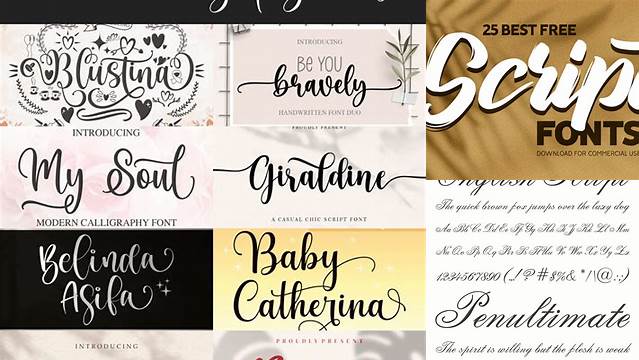
Free English Script Fonts: Download Now!
Hey guys! Looking to add a touch of elegance and personality to your designs? Well, you've come to the right place! We're diving deep into the world of english script hand font free download. From calligraphy-inspired swirls to playful, handwritten styles, there's a script font out there to match your creative vision. Let's explore the best options and where to find them, all without spending a dime!
1. The Allure of English Script Fonts
English script hand font free download are super popular for a reason. They bring a sense of sophistication and a personal touch that other font styles just can't replicate. Think wedding invitations, logos, branding materials, and even social media graphics – a well-chosen script font can elevate your design and make it truly memorable. The beauty of script fonts lies in their versatility. You can find elegant, formal scripts for upscale projects or more relaxed, casual scripts for a friendly, approachable vibe. It's all about finding the perfect match for your specific needs.
2. Where to Find Free English Script Fonts
4. Popular Styles of English Script Fonts
The world of english script hand font free download is vast and varied. You’ll find everything from classic calligraphy styles to modern, brush-lettered designs. Calligraphy scripts, like Great Vibes or Allura, are elegant and formal, perfect for wedding invitations and upscale branding. Brush scripts, like Amatic SC or Pacifico, have a more casual, handwritten feel, ideal for logos and social media graphics. Then there are monoline scripts, which have a consistent stroke width and a clean, modern look. Experiment with different styles to see what resonates with your project and brand identity.
5. Using Script Fonts Effectively in Design
English script hand font free download are beautiful, but they can be tricky to use effectively. Overusing them can make your design look cluttered and difficult to read. A good rule of thumb is to use script fonts sparingly, primarily for headings, logos, or accents. Pair them with a simpler, more readable sans-serif or serif font for body text. Also, pay attention to kerning and leading. Kerning refers to the spacing between individual letters, while leading refers to the spacing between lines of text. Adjusting these settings can significantly improve the readability and visual appeal of your script font.
6. Pairing Script Fonts with Other Fonts
The art of font pairing is essential for creating visually appealing and balanced designs. When you english script hand font free download, think about complementary fonts. A classic pairing is a script font with a clean sans-serif font like Helvetica or Arial. The contrast between the elegant script and the simple sans-serif creates a visually pleasing harmony. Another option is to pair a script font with a serif font like Times New Roman or Georgia. This combination can evoke a sense of tradition and sophistication. Experiment with different pairings to find what works best for your specific project.
7. English Script Fonts for Wedding Invitations
English script hand font free download are a staple for wedding invitations. They add a touch of romance and elegance that perfectly complements the special occasion. Popular choices include calligraphy-inspired fonts like Carolyna Pro Black , Beloved Script, or Honey Script. When designing wedding invitations, consider the overall theme and style of the wedding. A formal wedding might call for a more traditional script font, while a rustic or bohemian wedding might benefit from a more relaxed, handwritten style. Remember to keep the text legible and easy to read, even with the fancy script.
8. English Script Fonts for Logos
A well-chosen english script hand font free download can make a logo stand out and create a memorable brand identity. Script fonts can convey a sense of sophistication, creativity, or playfulness, depending on the style you choose. Before selecting a script font for your logo, consider your target audience and the message you want to convey. A luxury brand might opt for an elegant calligraphy script, while a children's brand might choose a more whimsical, handwritten font. Ensure the script font is legible and scalable, so it looks good on both small and large formats.
9. English Script Fonts for Branding
Branding goes beyond just a logo; it's the entire visual identity of your business. English script hand font free download can play a crucial role in creating a cohesive and memorable brand experience. Use script fonts consistently across all your marketing materials, from your website and social media to your business cards and packaging. Choose a script font that reflects your brand's personality and values. A sophisticated script can convey luxury and exclusivity, while a playful script can create a sense of fun and approachability. Remember to use script fonts sparingly and pair them with other fonts to maintain readability.
10. Free vs. Premium Script Fonts
While there are many fantastic english script hand font free download available, it's worth considering premium fonts as well. Premium fonts often offer higher quality, more extensive character sets, and better support from the font designer. They may also come with additional features like alternate glyphs, ligatures, and swashes, which can add even more personality to your designs. If you're working on a high-profile project or want to ensure you have the best possible font, investing in a premium script font can be a worthwhile decision.
11. Installing Your Downloaded Fonts
Okay, you've found the perfect english script hand font free download. Now what? Installing it is usually pretty straightforward! On Windows, you typically right-click the font file (usually a .ttf or .otf file) and select "Install." On macOS, you can double-click the font file and click the "Install Font" button in the Font Book application. After installing, you might need to restart your design software for the font to appear in the font list. If you're having trouble, there are plenty of online tutorials and guides that can walk you through the process.
12. Troubleshooting Font Issues
Sometimes, things don't go as planned. You english script hand font free download, install it, but it doesn't show up in your software! Don't panic! First, make sure you've restarted your design program. Sometimes that's all it takes. If that doesn't work, check if the font file is corrupted. Try downloading it again from the source. Also, ensure the font is compatible with your operating system. Some fonts are designed specifically for Windows or macOS. If all else fails, try clearing your font cache or contacting the font designer for support.
13. The Future of Script Fonts
The world of english script hand font free download is constantly evolving. With the rise of digital design and the increasing demand for unique and personalized branding, script fonts are likely to remain a popular choice for designers and businesses alike. We can expect to see even more innovative and creative script font designs in the future, incorporating new technologies and trends. From variable fonts that allow for greater customization to AI-powered font generators, the possibilities are endless.
14. Hand Lettering vs. Script Fonts
There's often confusion between hand lettering and script fonts. While both involve creating letterforms, they are fundamentally different. Hand lettering is the art of drawing letters by hand, while script fonts are pre-designed typefaces that can be typed on a computer. Hand lettering offers complete creative control and allows for unique, one-of-a-kind designs. Script fonts, on the other hand, are more convenient and consistent, making them ideal for projects where speed and uniformity are important. Often, designers will use hand lettering for a logo or a special heading and then use english script hand font free download for the rest of the text.
15. Creating Your Own Script Font
Feeling ambitious? Why not try creating your own script font? It's a challenging but rewarding process that allows you to express your unique style and create a truly original typeface. You'll need specialized software like FontLab Studio or Glyphs, as well as a good understanding of typography principles. Start by sketching your letterforms by hand, then digitize them and refine them using the software. Pay attention to details like kerning, leading, and consistency. Creating a font takes time and effort, but the result can be a valuable asset for your design projects.
16. Script Fonts and Readability
Let's be real, some english script hand font free download can be a nightmare to read! While they look beautiful, prioritizing readability is key, especially for body text or important information. Choose script fonts with clear letterforms and sufficient spacing. Avoid overly ornate or decorative scripts that can be difficult to decipher. Test your font on different screen sizes and resolutions to ensure it remains legible. If readability is a concern, consider using a script font sparingly, only for headings or accents, and pairing it with a more readable font for the body text.
17. Using Script Fonts in Web Design
English script hand font free download can add a touch of personality and elegance to your website. However, it's important to use them judiciously to avoid compromising readability and user experience. Use script fonts primarily for headings, logos, or decorative elements. For body text, stick to simpler, more readable fonts like Arial, Helvetica, or Open Sans. Ensure your script fonts are properly optimized for web use to avoid slow loading times. Use CSS to control the font size, color, and spacing to ensure optimal readability on different devices.
18. Script Fonts and Social Media
Social media is a visual platform, and english script hand font free download can help your content stand out from the crowd. Use script fonts to create eye-catching graphics, quotes, and captions. Choose script fonts that reflect your brand's personality and resonate with your target audience. Experiment with different font pairings and color combinations to create visually appealing designs. However, be mindful of readability, especially on small screens. Use script fonts sparingly and pair them with simpler fonts for body text. Tools like Canva and Adobe Spark make it easy to create stunning social media graphics with script fonts.
19. Script Fonts and Print Design
From brochures and posters to business cards and packaging, english script hand font free download can elevate your print designs and create a lasting impression. Choose script fonts that are appropriate for the overall tone and style of your project. For formal designs, opt for elegant calligraphy scripts. For more casual designs, consider handwritten or brush scripts. Ensure your script fonts are properly embedded in your print files to avoid font substitution issues. Work with a professional printer to ensure your designs are printed accurately and to the highest quality.
20. Best English Script Fonts for Cricut
If you're a Cricut enthusiast, you know how important it is to have a good selection of script fonts. English script hand font free download that work well with Cricut machines are those with clean lines and smooth curves. Avoid overly intricate or decorative fonts that can be difficult for the Cricut to cut. Popular choices include Samantha Script, Bebas Neue, and Arial (believe it or not, a simple sans-serif can look great with a script!). Before cutting, always test your font on a small piece of material to ensure it cuts cleanly and accurately. Remember to weld or unite overlapping letters to create a seamless design.
21. Monoline Script Fonts Explained
Monoline script fonts are characterized by their consistent stroke width. Unlike traditional script fonts that vary in thickness, monoline scripts maintain a uniform line weight throughout each letter. This gives them a clean, modern, and minimalist look. English script hand font free download in the monoline style are often used in logos, branding, and web design where a clean and simple aesthetic is desired. They are also highly legible, making them a good choice for body text in some cases. Examples of popular monoline script fonts include Montserrat and Raleway.
22. The Impact of Kerning on Script Fonts
Kerning, the adjustment of space between individual letters, is crucial for the readability and visual appeal of script fonts. Because script fonts are designed to connect, improper kerning can disrupt the flow and make the text difficult to read. When you english script hand font free download, pay close attention to the kerning and adjust it as needed. Some fonts may have built-in kerning tables, but you may still need to make manual adjustments, especially when using the font in different sizes or contexts. Use your design software's kerning tools to fine-tune the spacing and create a balanced and harmonious look.
23. How Leading Affects Script Font Appearance
Leading, also known as line-height, refers to the vertical space between lines of text. Proper leading is essential for readability, especially when using script fonts. Insufficient leading can make the text look cramped and difficult to read, while excessive leading can create too much space and disrupt the flow. When you english script hand font free download, experiment with different leading values to find the optimal spacing for your specific font and design. As a general rule, script fonts often benefit from slightly more leading than sans-serif or serif fonts.
24. English Script Fonts for T-Shirt Designs
Looking to add some flair to your t-shirt designs? English script hand font free download can be a great choice. They can add a personal touch, a sense of style, or a vintage vibe to your apparel. Choose script fonts that are legible and easy to read, even when printed on fabric. Consider the overall design and the target audience when selecting a font. A bold script can make a statement, while a delicate script can add a touch of elegance. Ensure your font is properly sized and positioned on the t-shirt to create a visually appealing design.
25. Legal Considerations When Using Free Fonts
We've touched on this, but it's SO important: When you english script hand font free download, you MUST understand the licensing terms. Just because a font is free doesn't mean you can use it however you want. Most free fonts come with specific usage restrictions, such as personal use only or a requirement to give credit to the font designer. Before using a free font in a commercial project, carefully review the license to ensure you're complying with the terms. If you're unsure about the license, contact the font designer or distributor for clarification. Ignoring licensing terms can lead to legal consequences.
26. The Psychology of Script Fonts
Fonts, including english script hand font free download, evoke emotions and associations. Script fonts often convey feelings of elegance, sophistication, creativity, and femininity. The specific emotions evoked will depend on the style of the script font. Calligraphy scripts can evoke a sense of tradition and formality, while handwritten scripts can create a feeling of warmth and intimacy. Consider the psychological impact of your font choice when designing your brand or project. Choose fonts that align with your desired message and resonate with your target audience.
27. Script Fonts and Cultural Context
Font choices can also be influenced by cultural context. Certain script styles may be associated with specific cultures or historical periods. When you english script hand font free download, be mindful of the cultural implications of your font choice. Avoid using fonts that could be considered culturally insensitive or inappropriate. Research the origins and history of the font to ensure it's a good fit for your project and target audience. In some cases, it may be appropriate to use a font that is specific to a particular culture or region, but always do so with respect and understanding.
28. Advanced Typography Techniques with Script Fonts
Take your script font game to the next level! Explore advanced typography techniques like ligatures, swashes, and alternate glyphs. Ligatures are special characters that combine two or more letters into a single form. Swashes are decorative extensions or flourishes that add elegance and personality to a font. Alternate glyphs are variations of individual letters that provide different stylistic options. Many premium english script hand font free download come with these advanced features, which can significantly enhance the visual appeal of your designs. Experiment with these techniques to create unique and sophisticated typography.
29. Script Fonts and Accessibility
While script fonts can be beautiful, they can also pose accessibility challenges. People with visual impairments or reading disabilities may find script fonts difficult to read. When you english script hand font free download, prioritize accessibility by using script fonts sparingly and pairing them with more readable fonts. Ensure your font is large enough and has sufficient contrast with the background. Provide alternative text for images containing script fonts. Consider using a screen reader to test the accessibility of your designs.
30. The Future of Typography: AI and Script Fonts
Artificial intelligence is transforming the world of typography. AI-powered tools can now generate custom fonts, optimize kerning and leading, and even suggest font pairings. In the future, we may see AI playing a more significant role in the design and selection of english script hand font free download. AI could help designers create unique and personalized script fonts that are tailored to specific projects and target audiences. It could also help to improve the accessibility and readability of script fonts, making them more inclusive and user-friendly. The possibilities are endless!
So there you have it! A deep dive into the world of free English script fonts. Go forth, download, and create something amazing! Remember to always double-check those licenses and have fun experimenting!